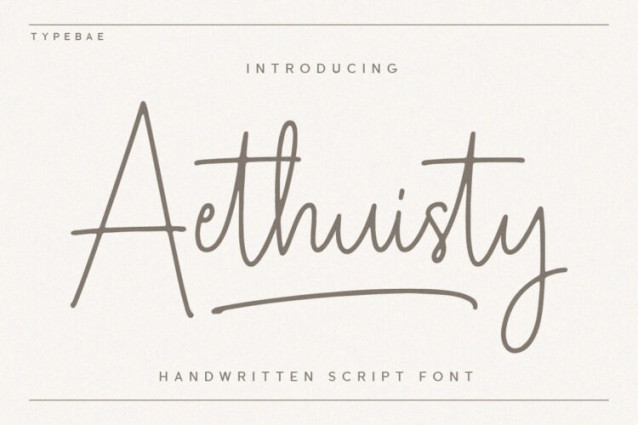
Aethuisty Handwritten Font
Aethuisty Handwritten Font is a sleek and elegant handwritten signature script font. Its design features smooth and delicate lines, creating a refined and sophisticated appearance. This font exudes a sense of grace and style, with its thin strokes and flowing curves. Aethuisty is perfect for adding a personal touch to any project, whether it’s a logo, invitation, or branding materials.